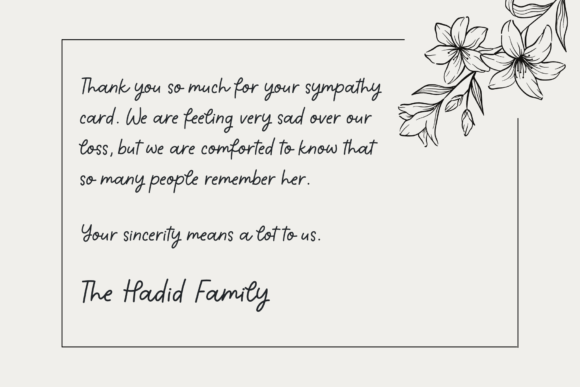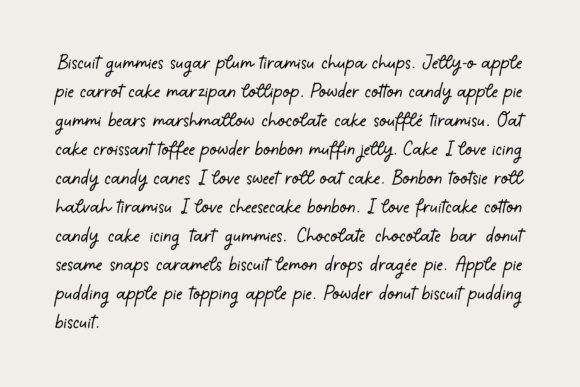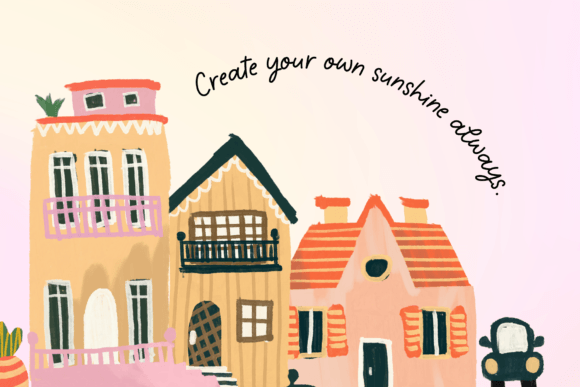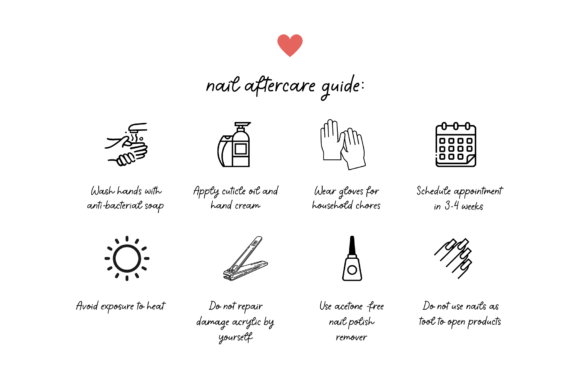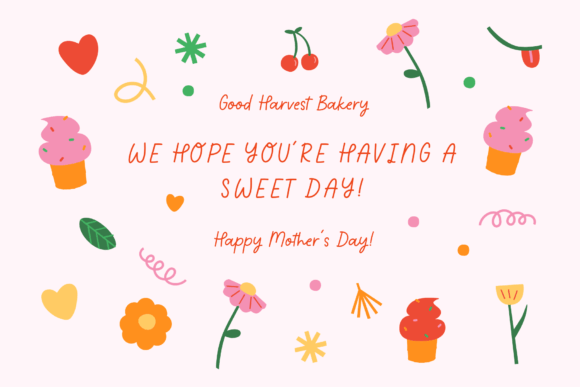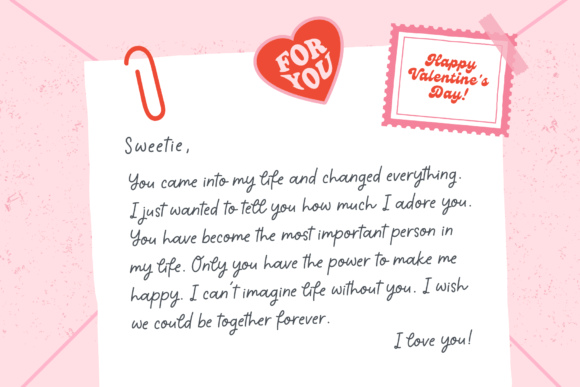
Introduction to Magdalena Font
As a designer, have you ever found yourself in a moment of pure creativity, staring at a blank page, and wanting to add that extra special something to your project? You know, that unique touch that sets it apart from the rest? For many of us, that moment of inspiration often leads to a search for the perfect design resource – one that’s both elegant and high quality. That’s where the Magdalena Font comes in, a beautifully hand-crafted script font that’s sure to add a touch of sophistication to any creative project.
| 👤 Author | Cotton White Studio |
With its authentic hand-lettered style, the Magdalena Font is a valuable addition to any designer’s toolkit. Whether you’re working on branding, invitations, blogs, or planners, this font is sure to elevate your work to the next level. And the best part? It’s available as a free download, complete with a transparent background, making it easy to incorporate into your designs.
Key Features of Magdalena Font
- High-quality design resource ideal for creative projects, offering a unique and elegant style.
- Transparent background, allowing for seamless integration into your design.
- Available in 5 different font styles, including bold, regular, light, italic, and bold italic.
- Designed to work well at high resolutions, ensuring crisp and clear text even at large sizes.
Honest Review: Magdalena Font
As a designer, I’m always on the lookout for high-quality fonts to enhance my creative projects. The Magdalena Font is one such find that I’d like to share with you. This elegant script font is perfect for adding a touch of sophistication to your design work.
- ✨ High-quality design: The Magdalena Font boasts beautiful, intricate letterforms that are sure to impress.
- ✨ Versatile: This font is suitable for a wide range of creative projects, from wedding invitations to blog posts.
- ⚠️ Limited font styles: While the Magdalena Font is beautiful, it’s available in only a few styles, which might limit its use in certain projects.
Overall, I’m impressed with the Magdalena Font. Its elegant design and versatility make it a great addition to any designer’s toolkit. If you’re looking for a high-quality font to elevate your creative project, I highly recommend giving this one a try.
Magdalena Font
Designing with Magdalena Font
The Magdalena Font is a versatile, high-quality design resource ideal for creative projects that require elegance and sophistication. With its transparent background, this font can be easily layered over images or used as a standalone element.
You can also use the Magdalena Font in Microsoft PowerPoint or Word to add a touch of sophistication to your presentations and documents.
To get the most out of the Magdalena Font, experiment with different font sizes, colors, and styles. You can also combine the font with other design elements, such as images and graphics, to create unique and eye-catching compositions.
Common Use Cases for Magdalena Font
The Magdalena Font is ideal for a variety of design projects, including wedding invitations, business cards, and marketing materials. Its elegant and sophisticated design makes it perfect for projects that require a touch of luxury and sophistication.